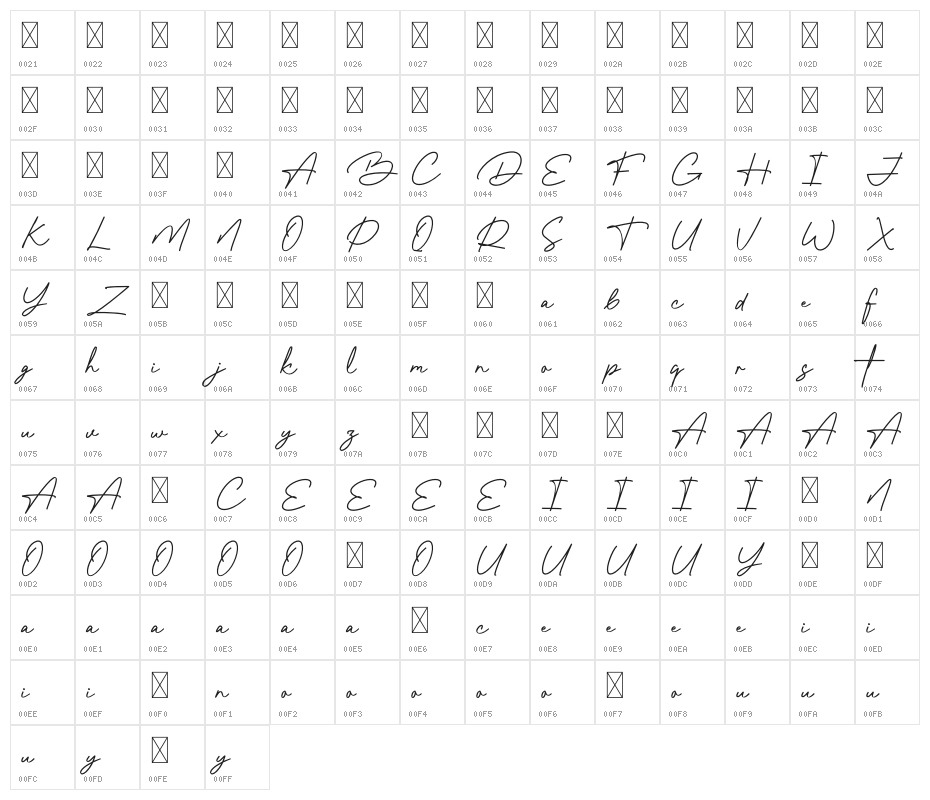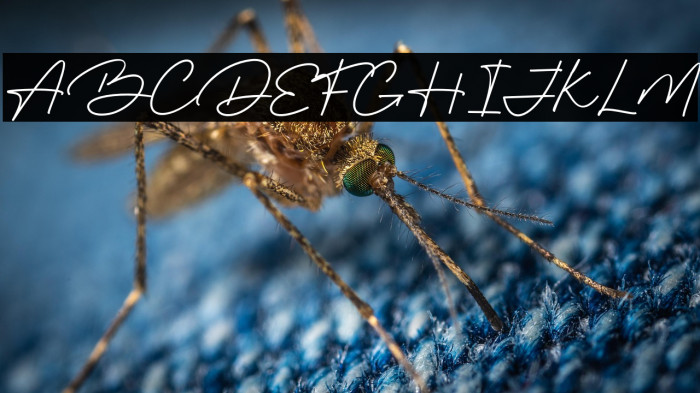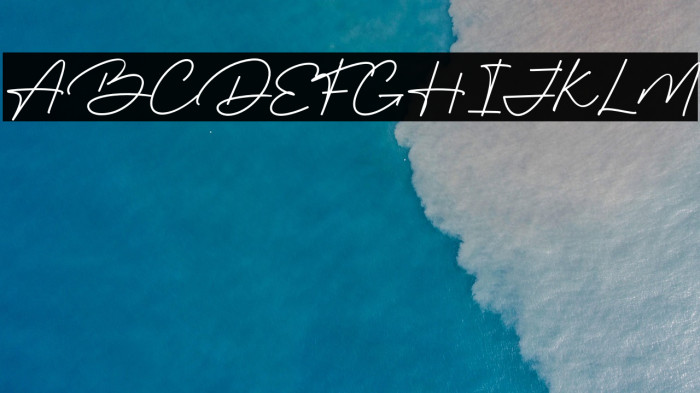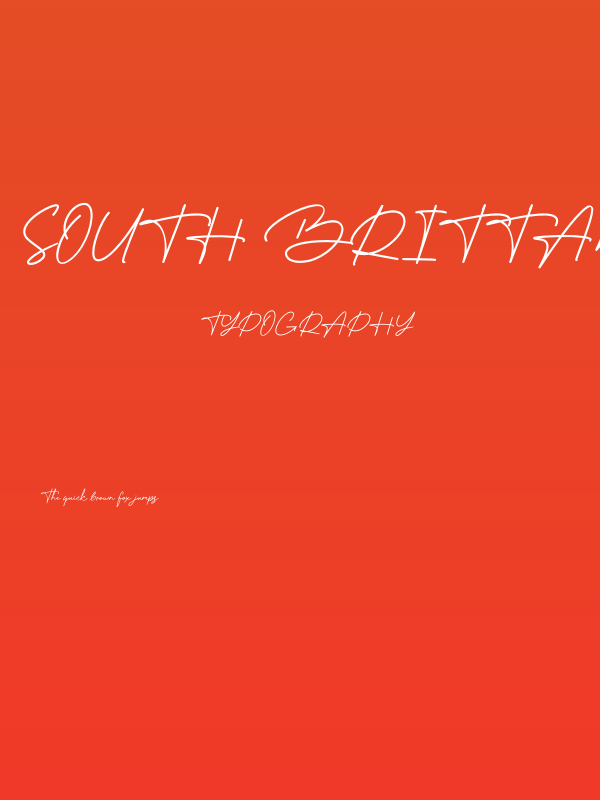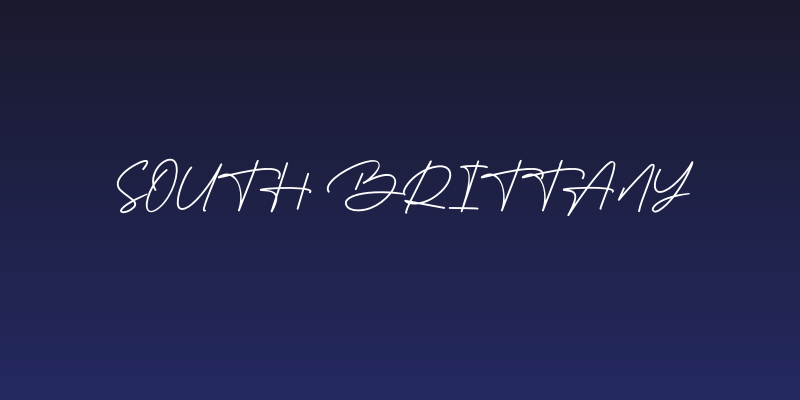
South Brittany Font
South Brittany Description
A handwritten script font with a casual and flowing style, featuring connected letters and a natural, organic appearance.
| Overall Style | Casual, Organic |
| Use Case | Logos, Invitations, Greeting cards |
| Proposed Projects | Invitations, greeting cards, personal branding. |